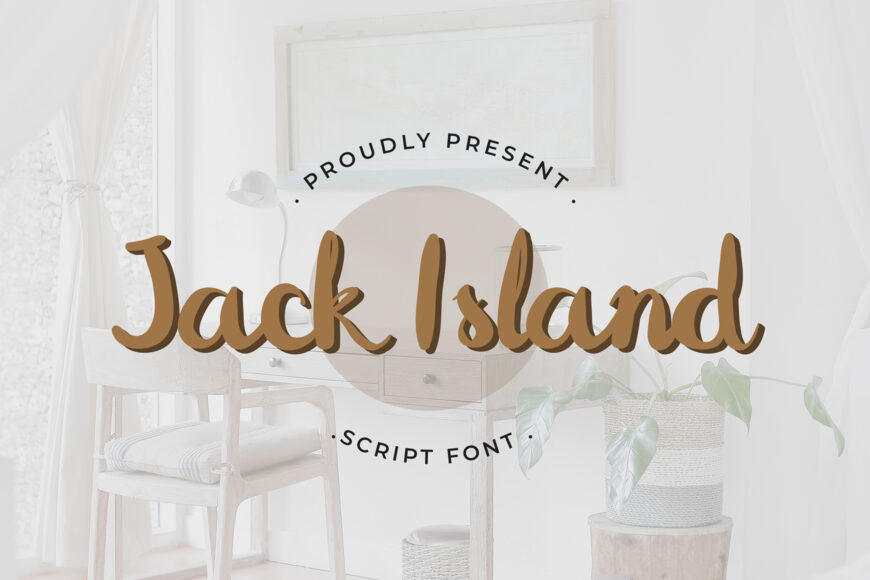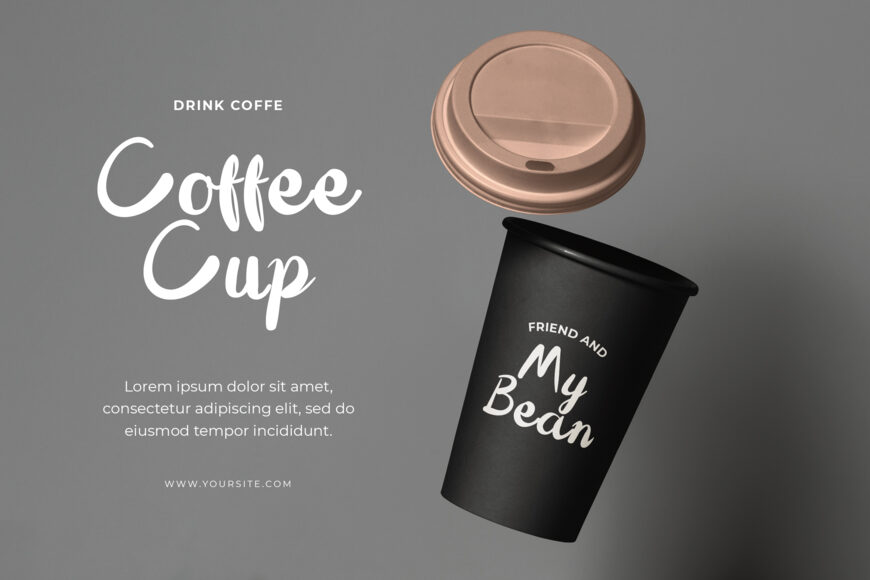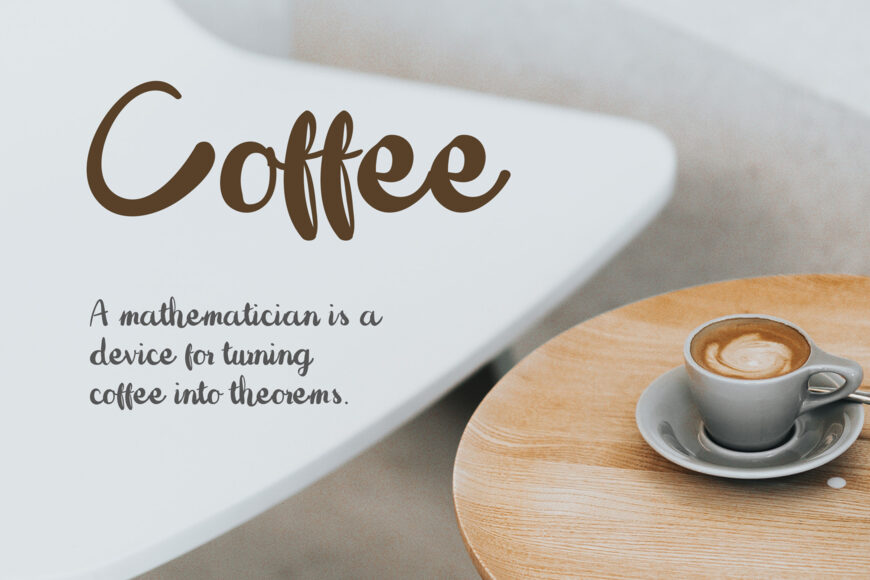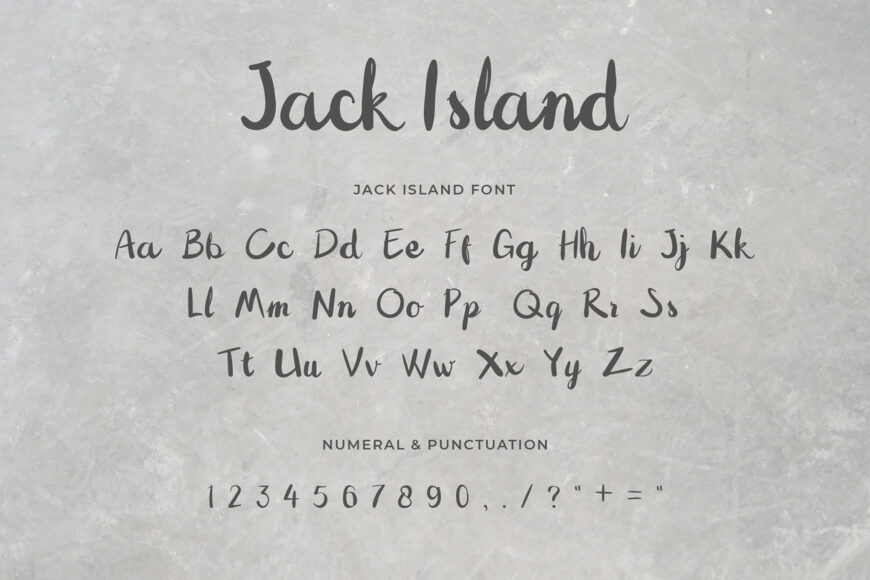
Jack Island is a thick lettered, yet stylish paint brushed script font. It has a trendy vibe and it can be used for a variety of design ideas, both formal and informal. Have fun with this beautiful font and explore its endless variations.